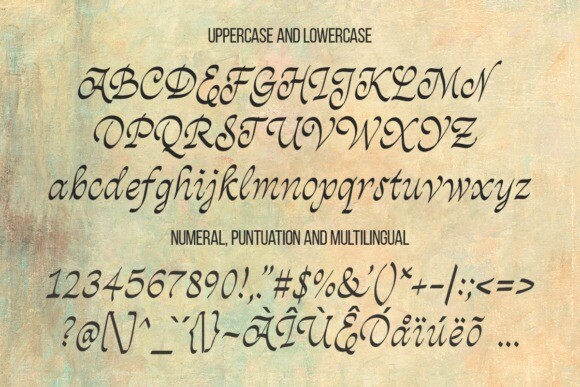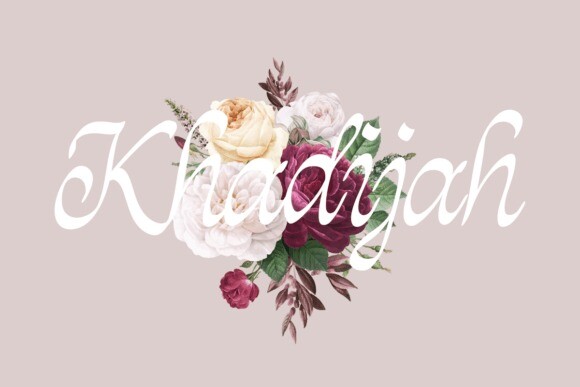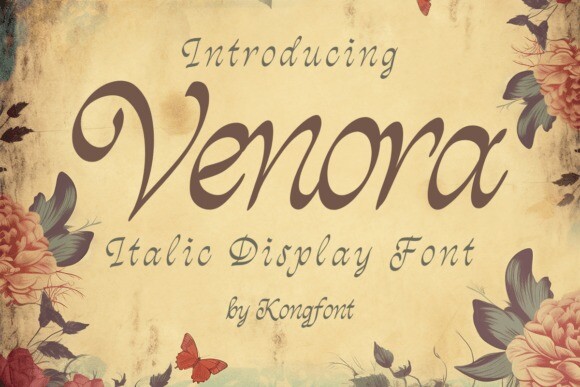
Venora Script Font
Designer: fontkong
Venora Script Font – Script Handwritten Font is a stylish and elegant typeface with a natural handwritten charm. Perfect for wedding invitations, logos, branding, quotes, and social media graphics. Its smooth, flowing style adds a personal and sophisticated touch to any design.